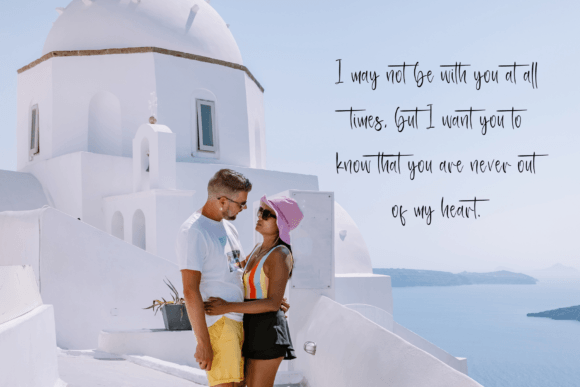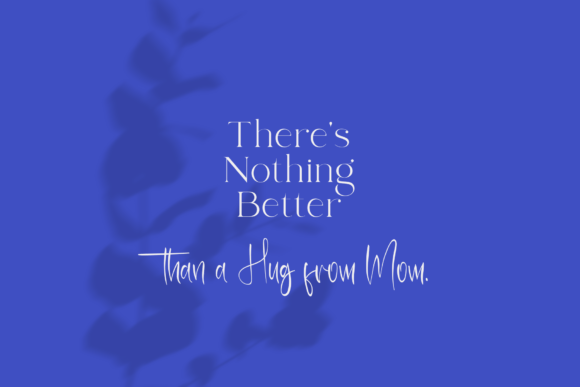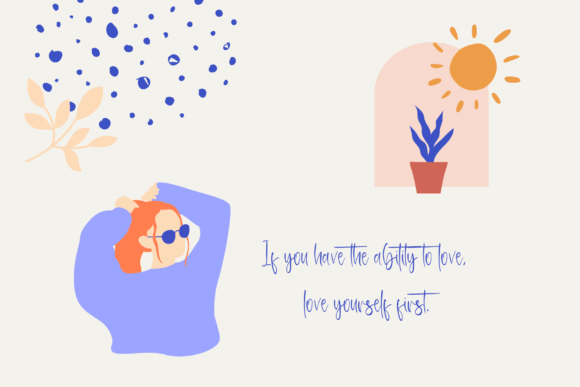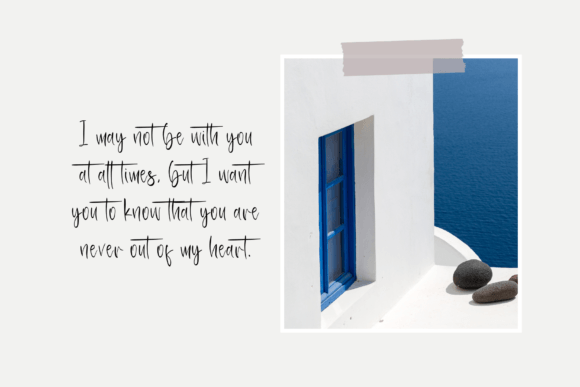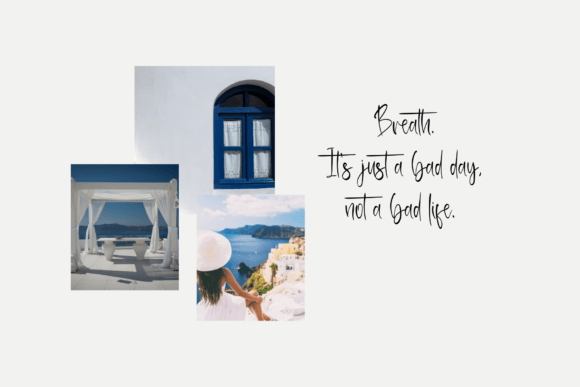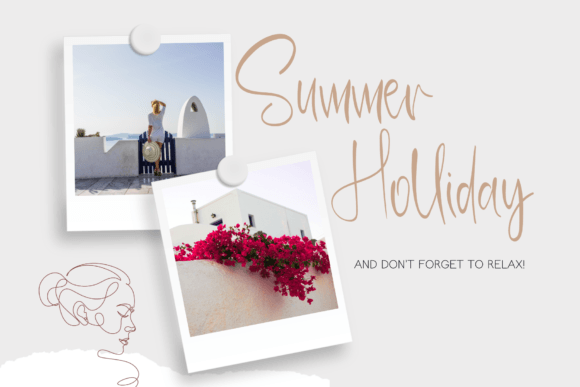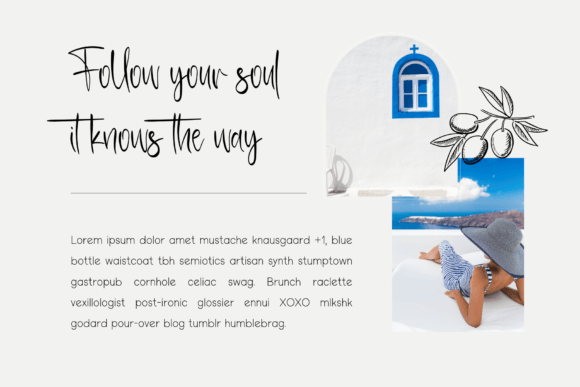
Santorini Water Font
About Santorini Water Font
“Santorini Water” is a captivating handwritten font that exudes enchantment and charm. Its versatility allows it to be used in a wide range of applications, from greeting cards to headlines, and it is sure to infuse a romantic and captivating atmosphere into your next project.
The allure of “Santorini Water” lies in its ability to transport the reader to a romantic and dreamy setting. The flowing and well-crafted characters of this font create a sense of elegance and sophistication that is perfect for conveying heartfelt messages and emotions in design.
One of the standout features of “Santorini Water” is its adaptability. It effortlessly fits into various design contexts, making it a valuable asset for projects that require a touch of romance and allure. Whether you’re designing greeting cards, headlines, or any other creative work, “Santorini Water” is there to add a sense of romanticism.
With “Santorini Water” as part of your font collection, you have a versatile tool that can elevate your creative projects with its enchanting and romantic style. It serves as a reminder of the power of typography to create designs that resonate with emotion and elegance.
In summary, “Santorini Water” is an enchanting handwritten font that brings a touch of romance and sophistication to a wide spectrum of design projects. Its versatility and captivating style make it a valuable asset for designers and creators looking to infuse their work with a sense of romanticism and allure. Whether you’re working on greeting cards or headlines, “Santorini Water” is there to add a romantic feel to your next project.